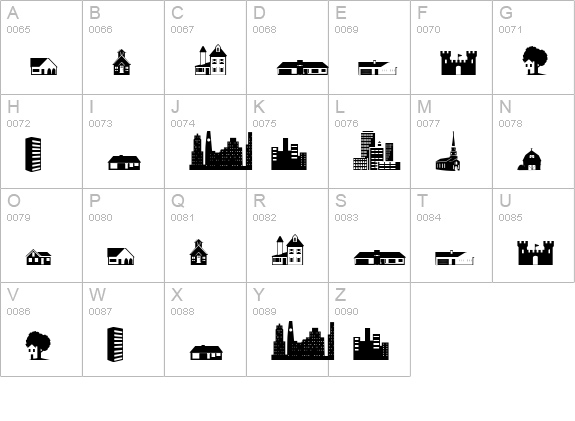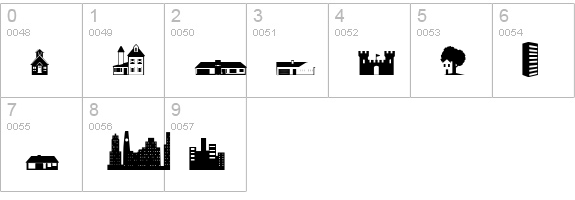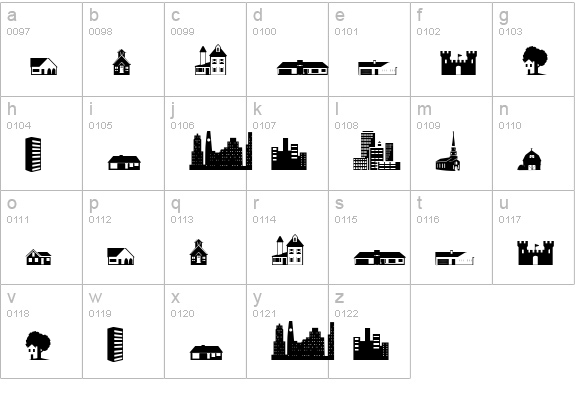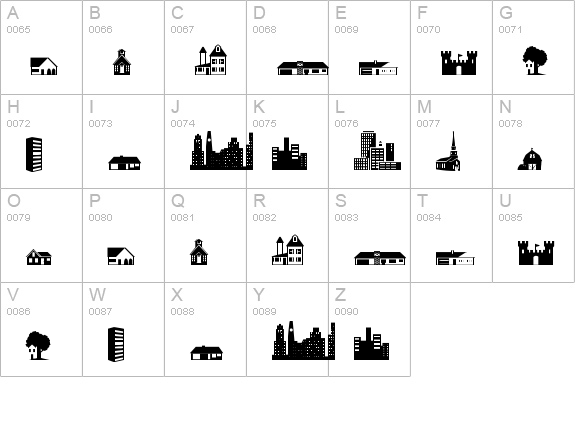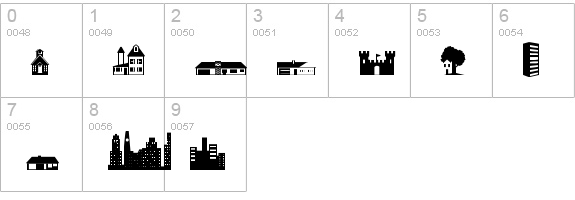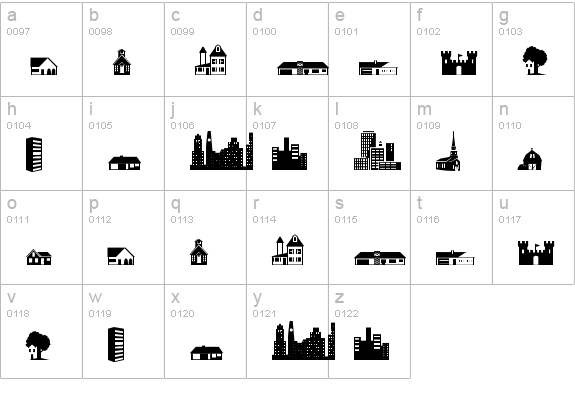
Little City 2000 Font Details
Little City 2000 font is a charming and playful typeface that brings a touch of whimsy to any design project. With its quirky and unique letterforms, this font is perfect for adding a fun and lighthearted feel to your creations. Whether you're designing invitations, posters, or branding materials, Little City 2000 font is sure to make a statement. The best part? Little City 2000 font is available for free download at FontsMarket.com. Simply head over to the website and start using this delightful font in your projects today. Don't miss out on this opportunity to add a touch of creativity and personality to your designs with Little City 2000 font. Download it now and let your imagination run wild!